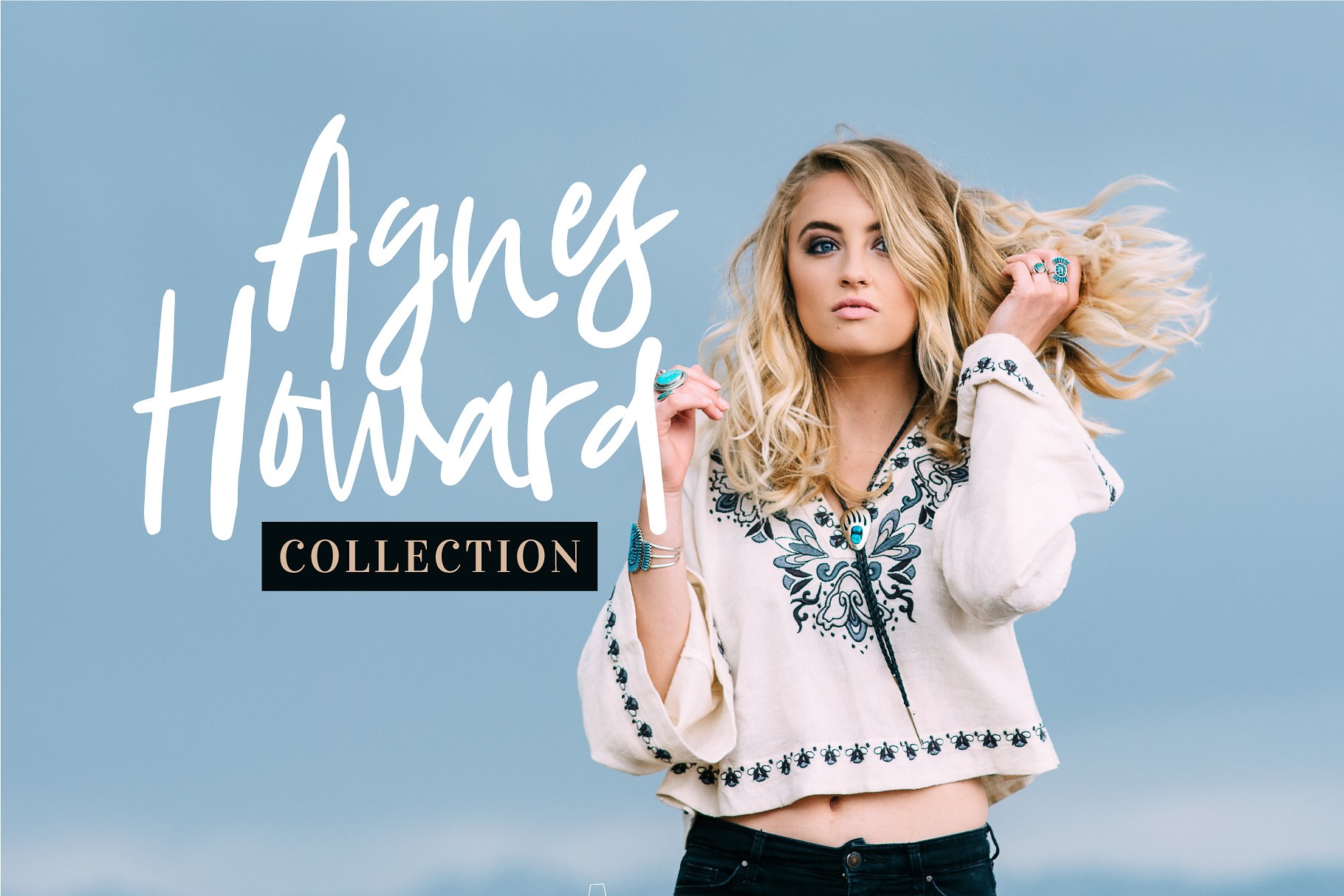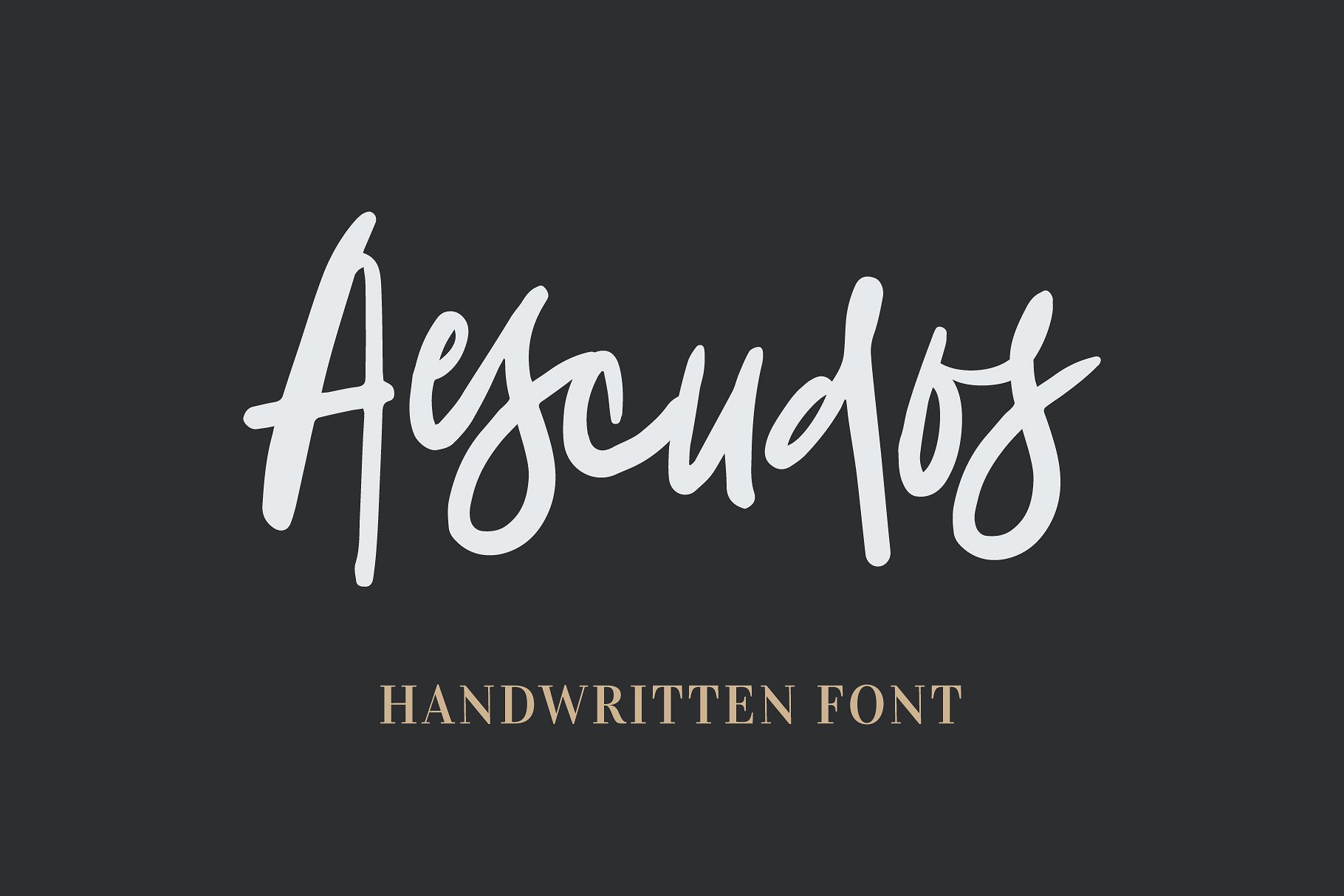
Aescudos Handwritten Font
I’m excited to introduce you guys to Aescudos; a natural handwritten font that is perfect for logotype, headline, invitation, greeting card and more. Available with a bunch of alternative characters and ligatures which are accessible by using Adobe Illustrator, InDesign, and Photoshop.
Aescudos is a natural handwritten font that is perfect for logotype, headline, invitation, greeting card and more.